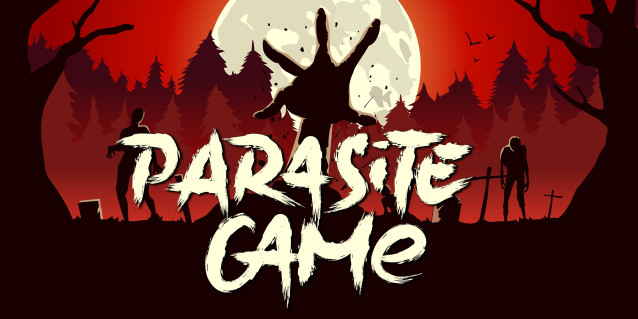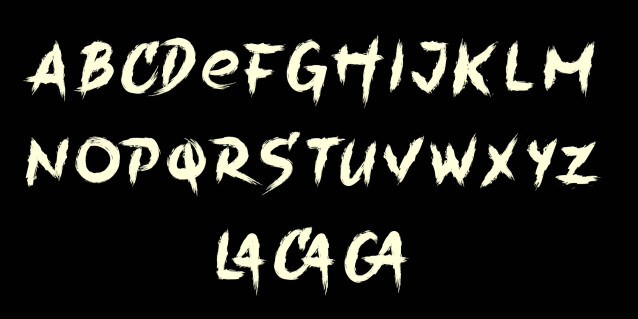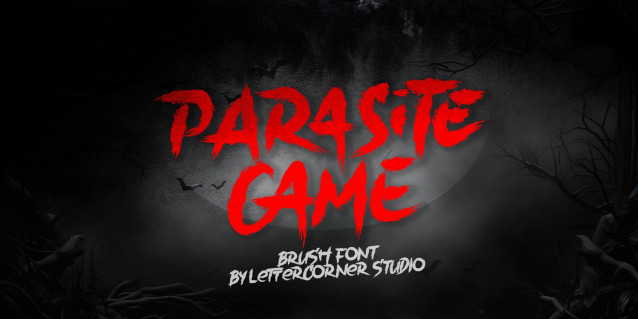
Parasite Game Font
Parasite Game Font, is a Horror Font Display has many purpose and suitable for horror, movie, movie poster, modern, halloween, advertising and much more.